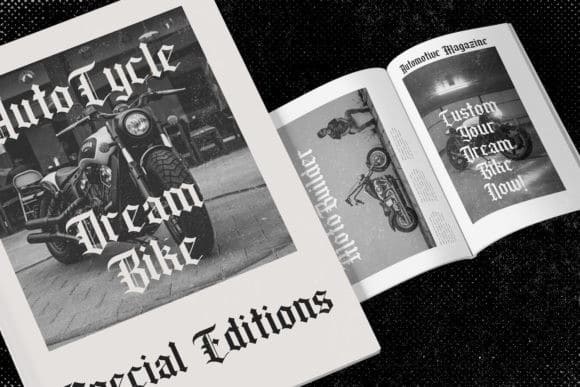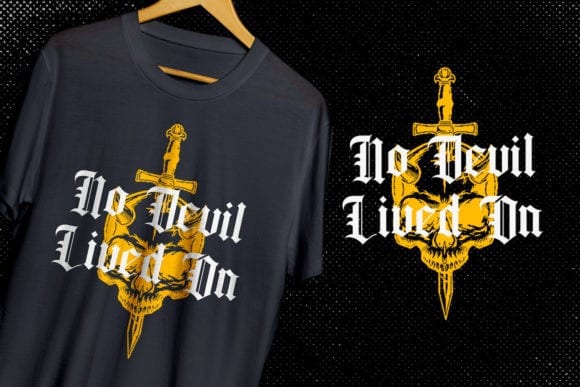
Wilson Wells Blackletter Font is a unique blackletter typeface inspired by the sub-text of a book. It features a vintage style, which is combining modern and classic typography with some awesome alternates. Use it to add that special retro touch to any design idea you can think of!. You can use this font to create logos, posters, magazines, books, and other design needs, or also for collections.